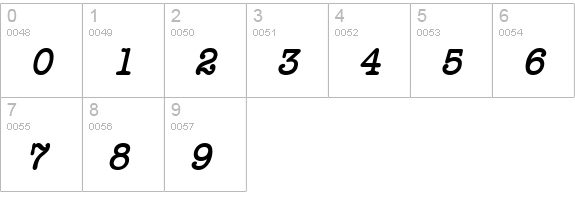
Headline Condensed BoldItalic is a distinctive, condensed-width variant in the Headline typeface family \xE2\x80\x94 well suited to design and typography projects.
Introducing Headline Condensed BoldItalic, a striking and versatile font that is sure to make a bold statement in any design project. With its unique combination of condensed letterforms and bold italic styling, this font exudes a sense of strength and confidence. Headline Condensed BoldItalic is perfect for headlines, titles, logos, and any other design element that requires a powerful and attention-grabbing presence. Its condensed form allows for maximum impact, while the bold italic style adds a touch of elegance and sophistication. But what makes Headline Condensed BoldItalic even more appealing is that it is completely free! Yes, you read that right - this amazing font is freely available to download at FontsMarket.com. Whether you're a professional designer looking to add some flair to your projects or a casual user in need of a font that stands out, Headline Condensed BoldItalic is the perfect choice. So why wait? Head over to FontsMarket.com now and get your hands on this fantastic font. With Headline Condensed BoldItalic, you can elevate your designs to new heights and make a lasting impression. Don't miss out on this opportunity to enhance your creativity - download Headline Condensed BoldItalic today, and let your designs speak volumes.